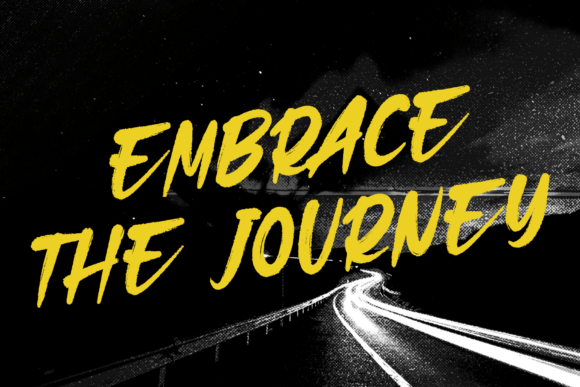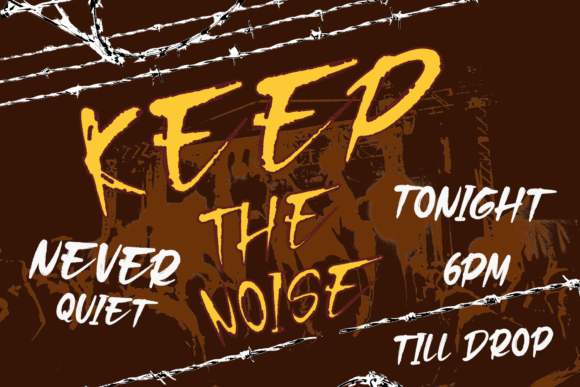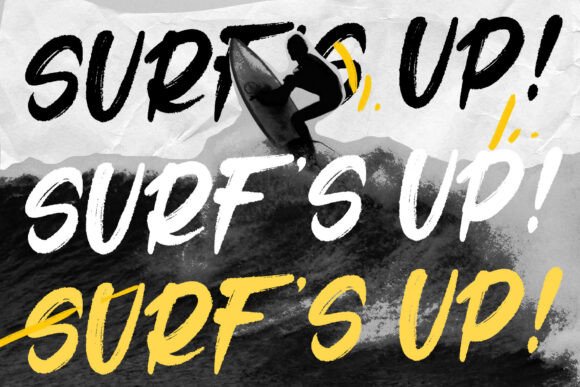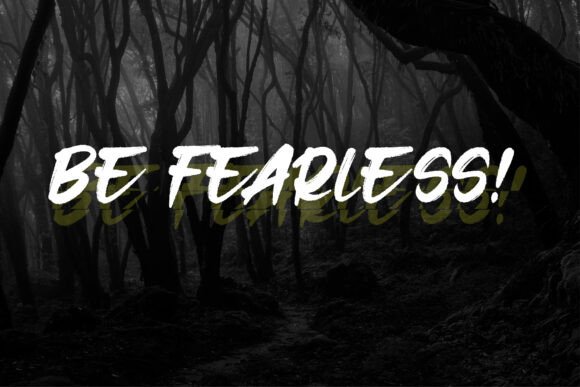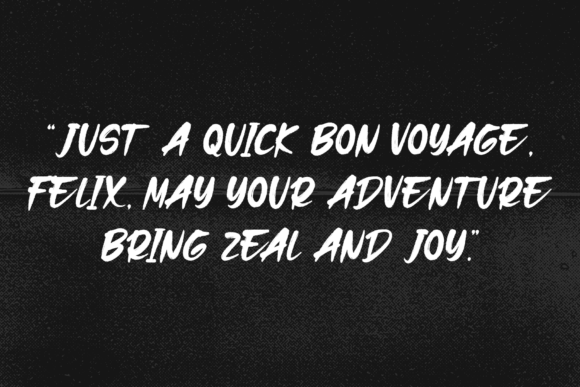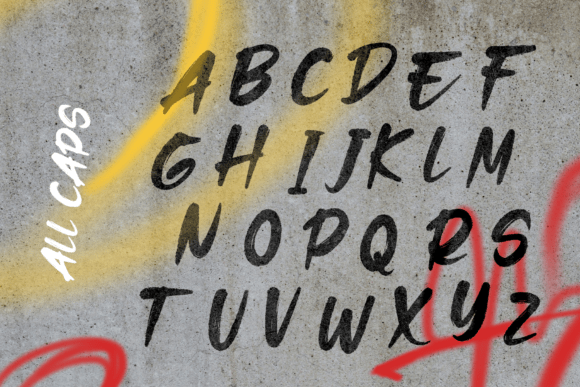
Introducing Artaroko: The Ultimate Handwritten Brush Font for Bold Designs
Are you looking for a font that can add a touch of raw energy and fearless expression to your design projects? Look no further than Artaroko, a handwritten brush font that is inspired by street art and urban culture. With its bold strokes and authentic hand-painted textures, Artaroko is the perfect choice for designers who want to create impactful headlines, bold quotes, and statement branding.
What is Artaroko?
Artaroko is a grunge brush font that is designed to bring a sense of edginess and rebellion to your designs. Its all-caps style makes it perfect for display fonts, and its rough edges and textured details give it a real, energetic, and handcrafted feel. Whether you’re looking for a street style font or graffiti brush font, Artaroko is an excellent choice.
Key Features of Artaroko
- Handwritten brush font: Artaroko is a handwritten brush font that is designed to look like it was painted with a brush.
- Bold strokes: The font features bold strokes that give it a raw and energetic feel.
- Authentic hand-painted textures: The font includes authentic hand-painted textures that add to its real and handcrafted feel.
- All-caps style: Artaroko is an all-caps font that is perfect for display fonts and headlines.
- Rough edges and textured details: The font features rough edges and textured details that give it a real, energetic, and handcrafted feel.
Best Use Cases for Artaroko
Artaroko is a versatile font that can be used in a variety of design projects. Here are some of the best use cases for the font:
- Urban branding & streetwear designs: Artaroko is perfect for urban branding and streetwear designs, where a bold and edgy font is needed.
- Music covers, festival & gig posters: The font is great for music covers, festival and gig posters, where a bold and eye-catching font is required.
- Graffiti-inspired artwork: Artaroko is ideal for graffiti-inspired artwork, where a font that looks like it was spray-painted on the wall is needed.
- Bold social media graphics: The font is perfect for creating bold social media graphics that grab attention.
- Logos, apparel & merchandise: Artaroko can be used to create bold and eye-catching logos, apparel, and merchandise.
Why Choose Artaroko?
There are many reasons why you should choose Artaroko for your design projects. Here are a few:
- Unique and bold design: Artaroko has a unique and bold design that will make your designs stand out.
- High-quality font: The font is of high quality and is designed to look great in any size.
- Versatile: The font is versatile and can be used in a variety of design projects.
In conclusion, Artaroko is a handwritten brush font that is perfect for designers who want to add a touch of raw energy and fearless expression to their designs. With its bold strokes, authentic hand-painted textures, and all-caps style, Artaroko is ideal for urban branding, streetwear designs, music covers, festival and gig posters, graffiti-inspired artwork, bold social media graphics, logos, apparel, and merchandise. So why wait? Download Artaroko today and start creating bold and eye-catching designs.